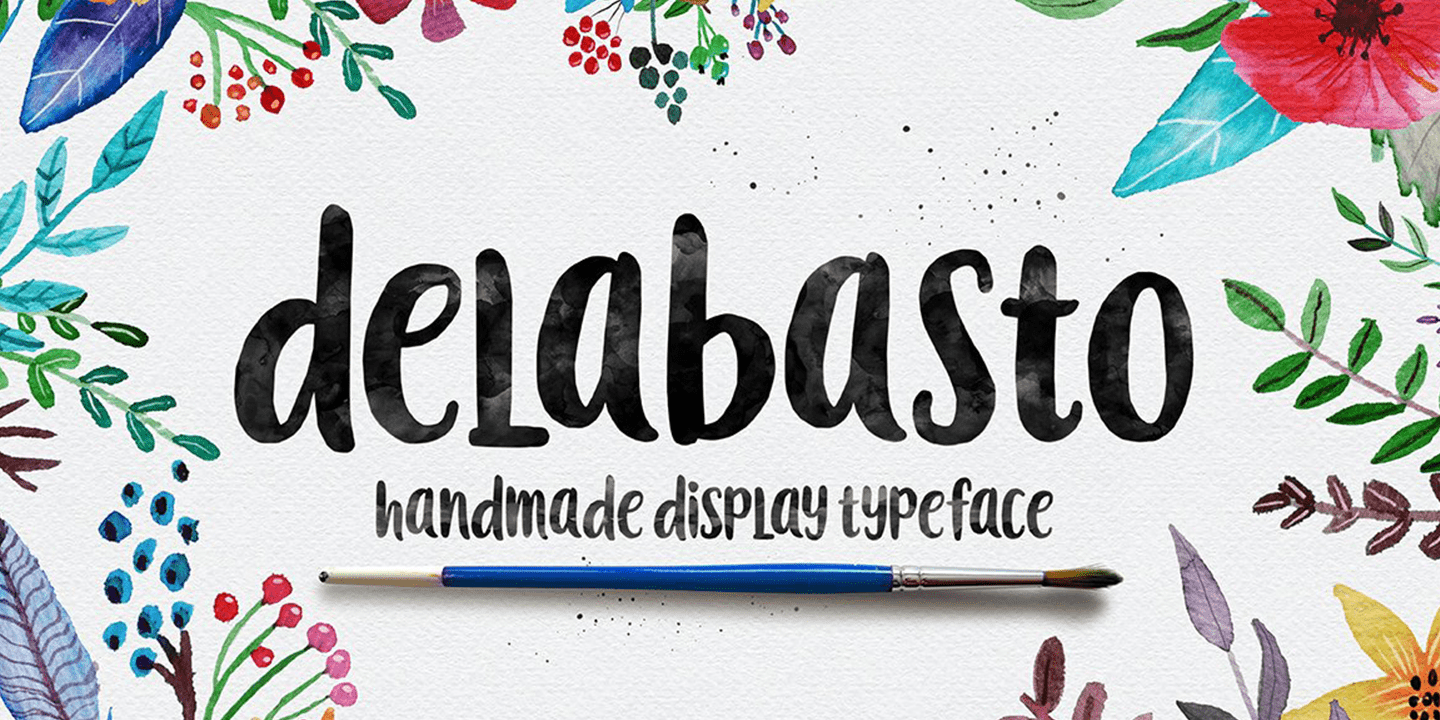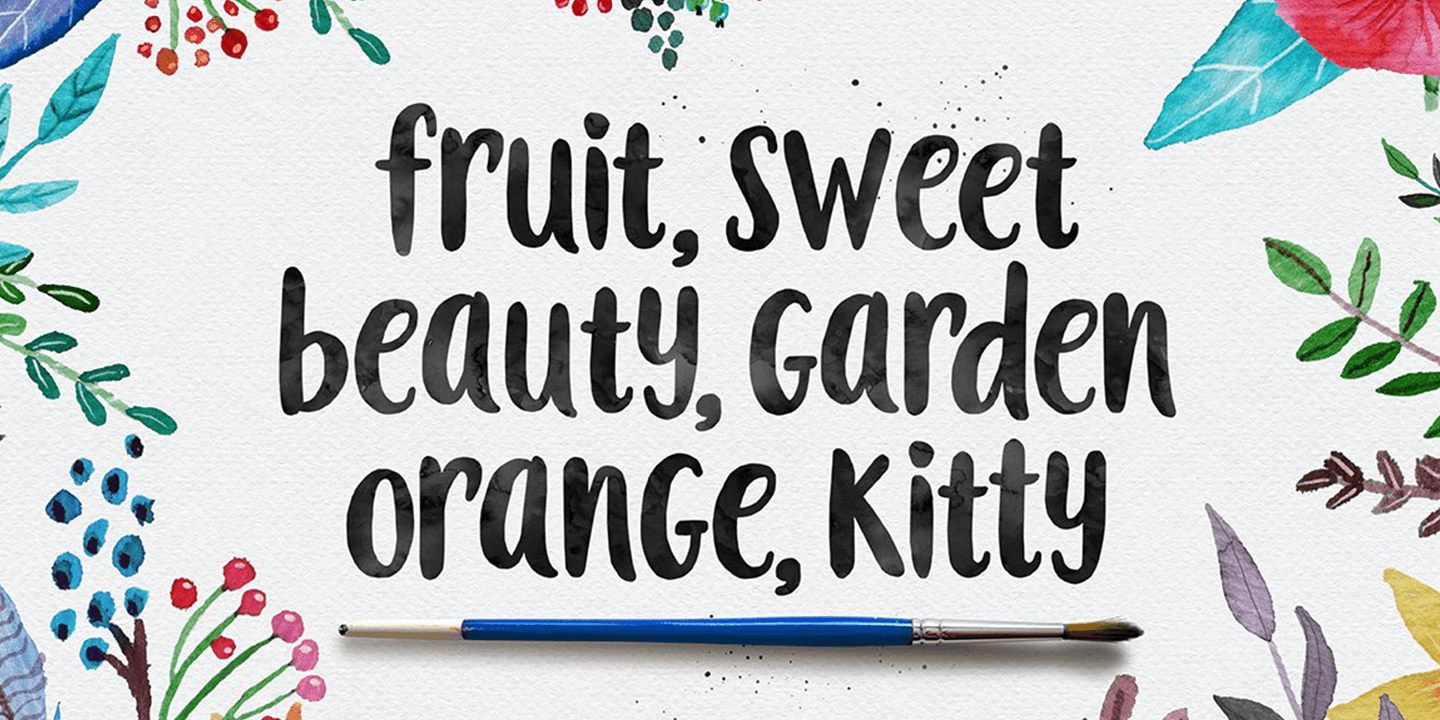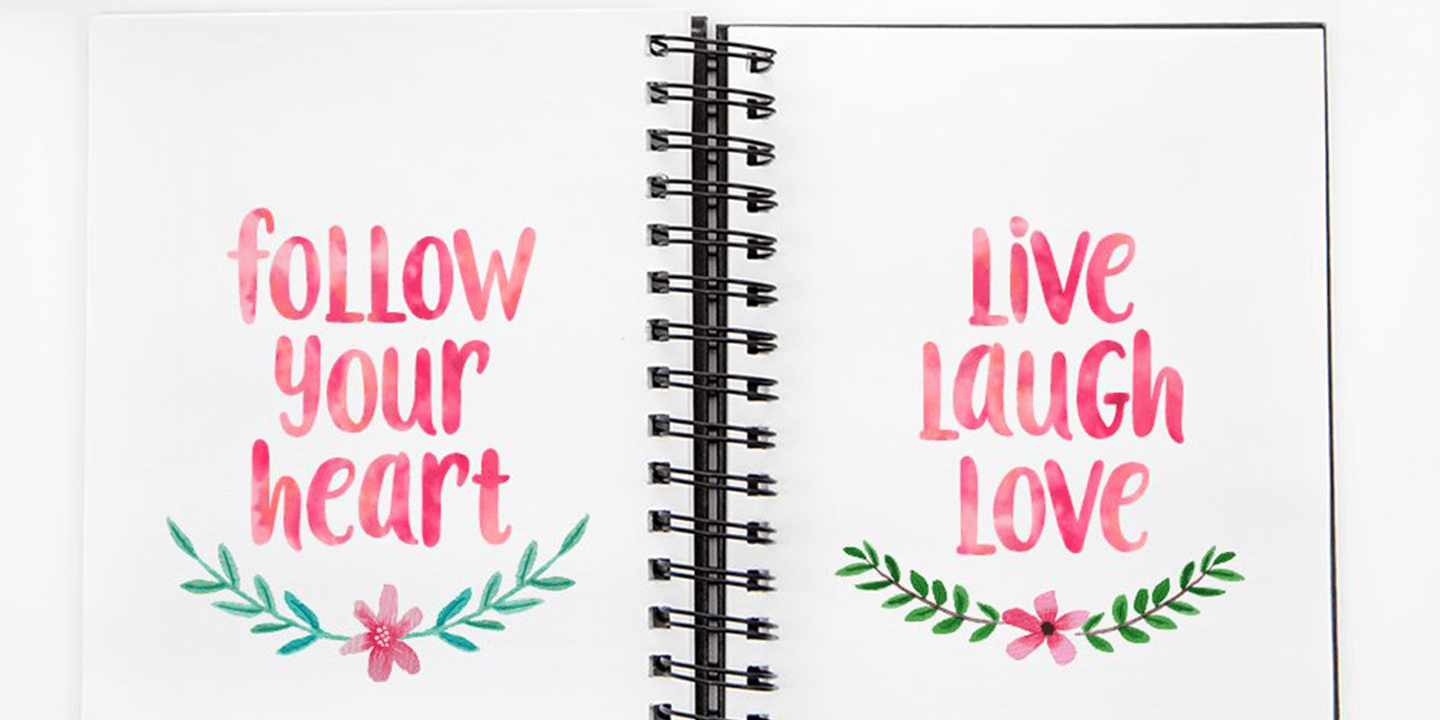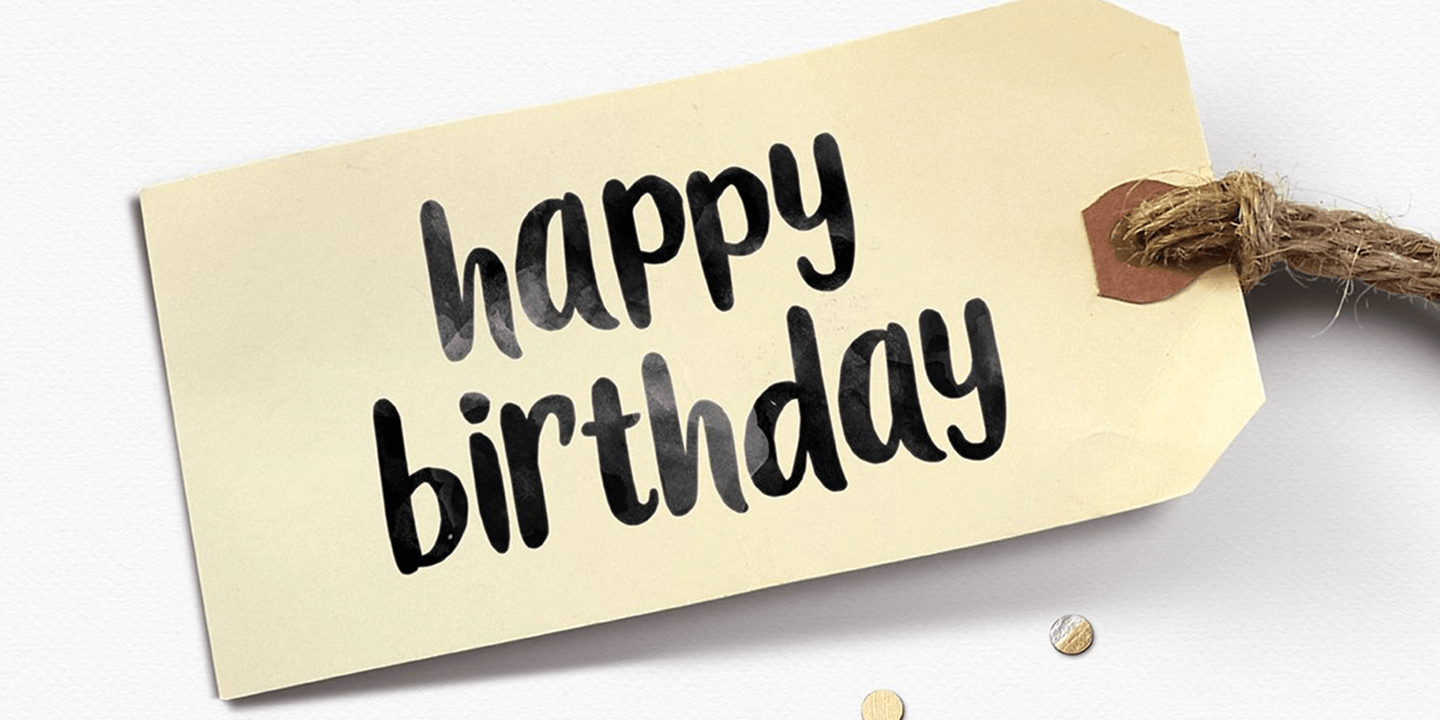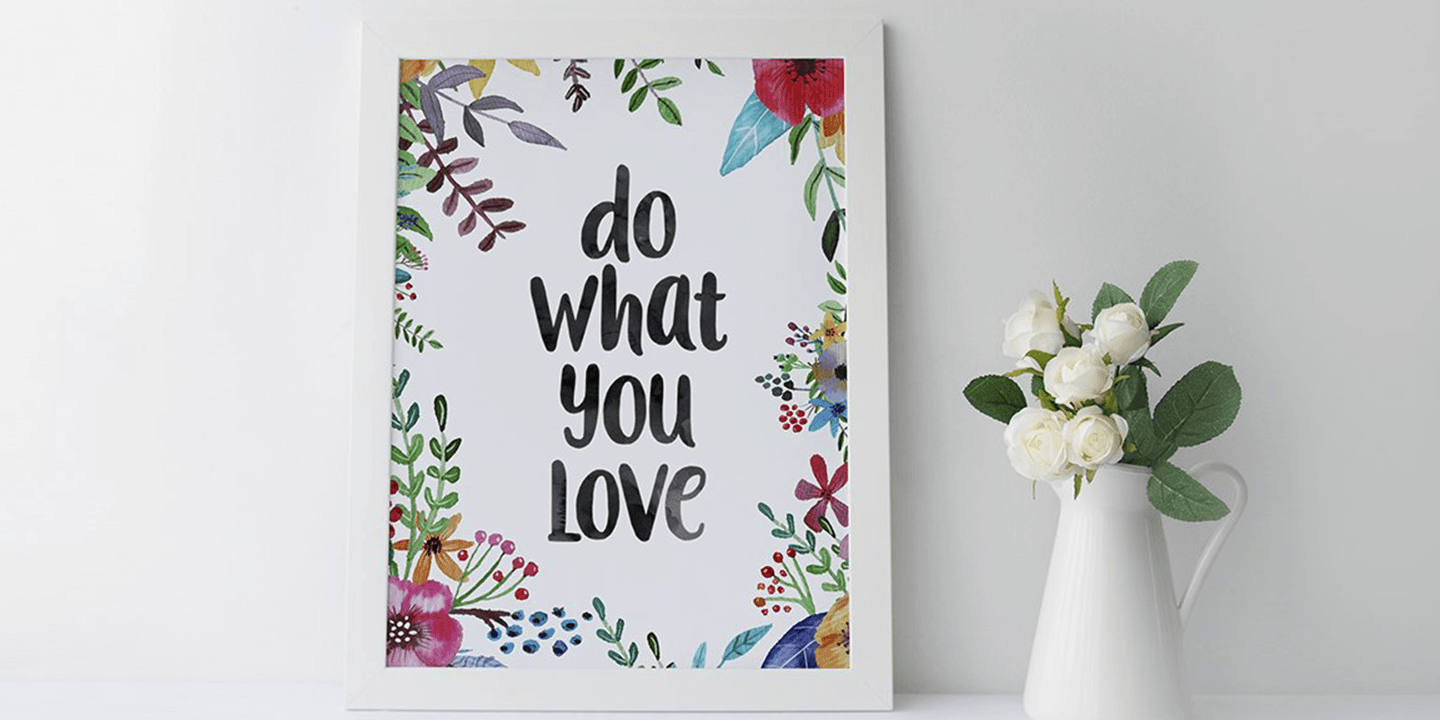
Delabasto
Delabasto is a contemporary brush font, with the look of a stylish face, were painted on paper and carefully made into a font. It can be used for stationery, fashion, logo, merchandise, books, clothing, magazines, cover artwork etc. Delabasto includes several ligatures, alternates and international support.